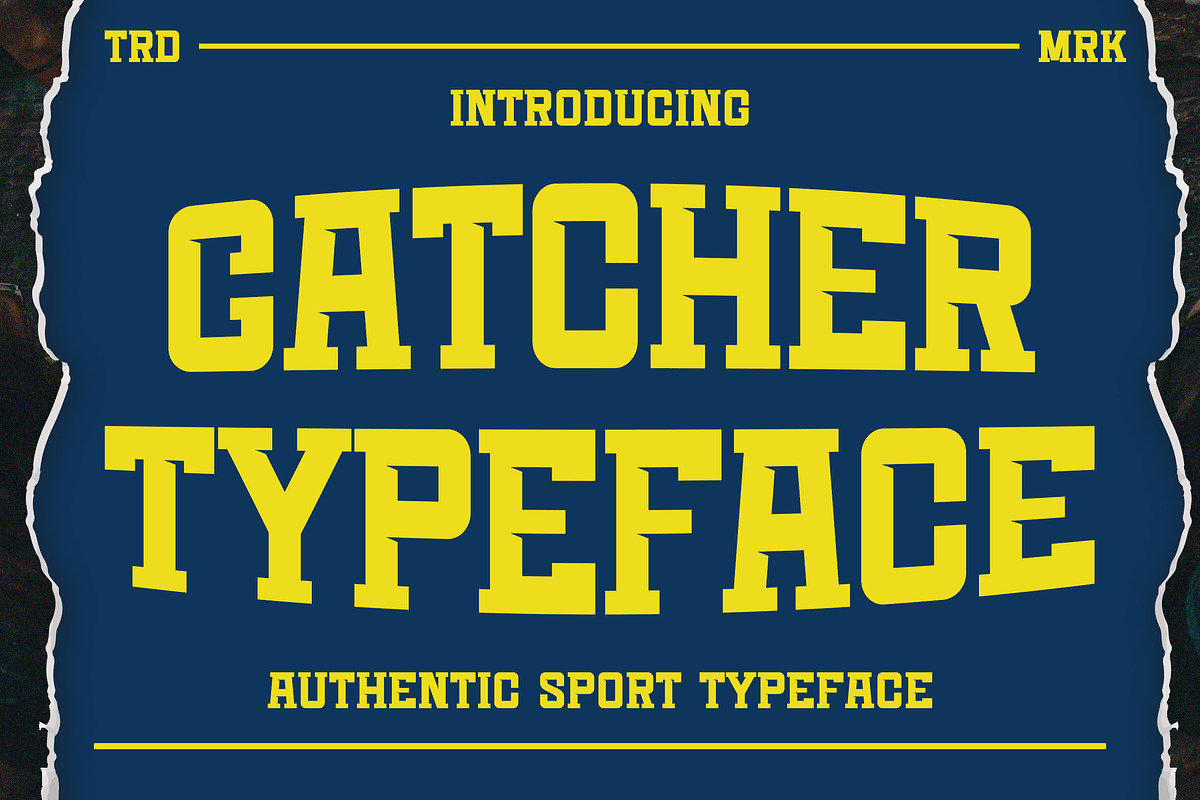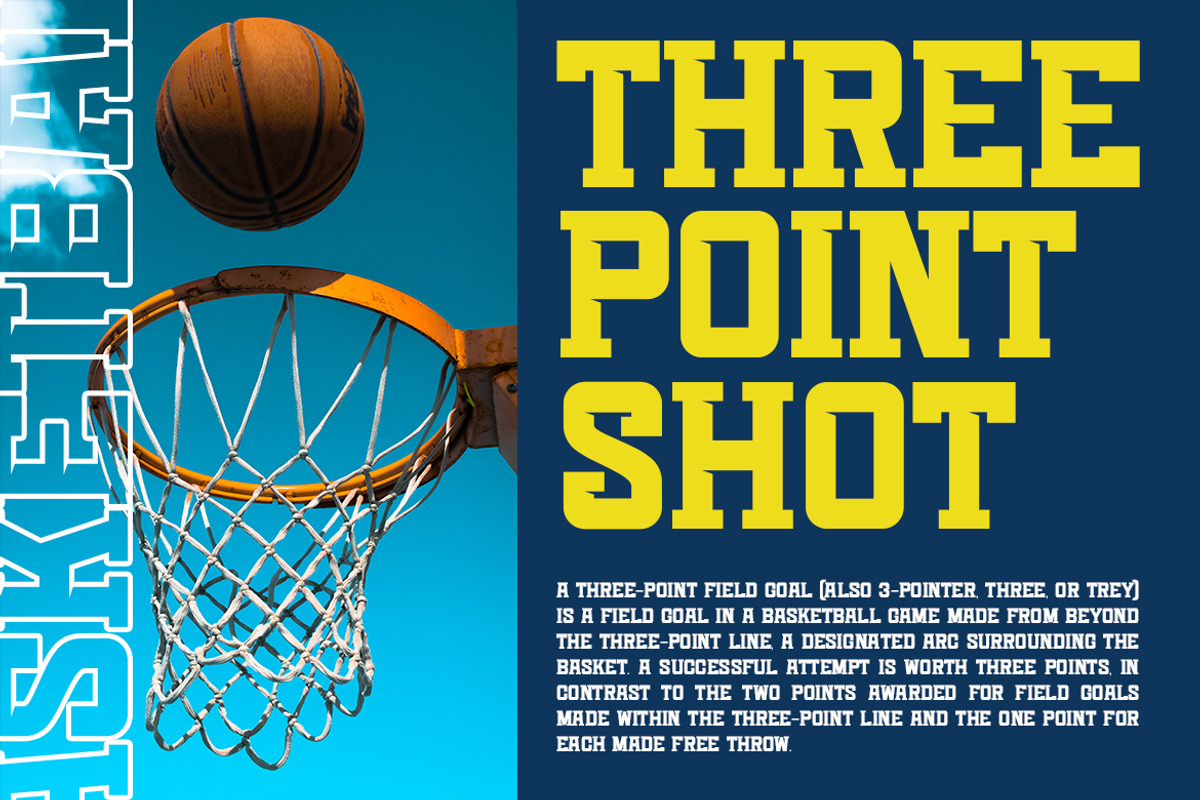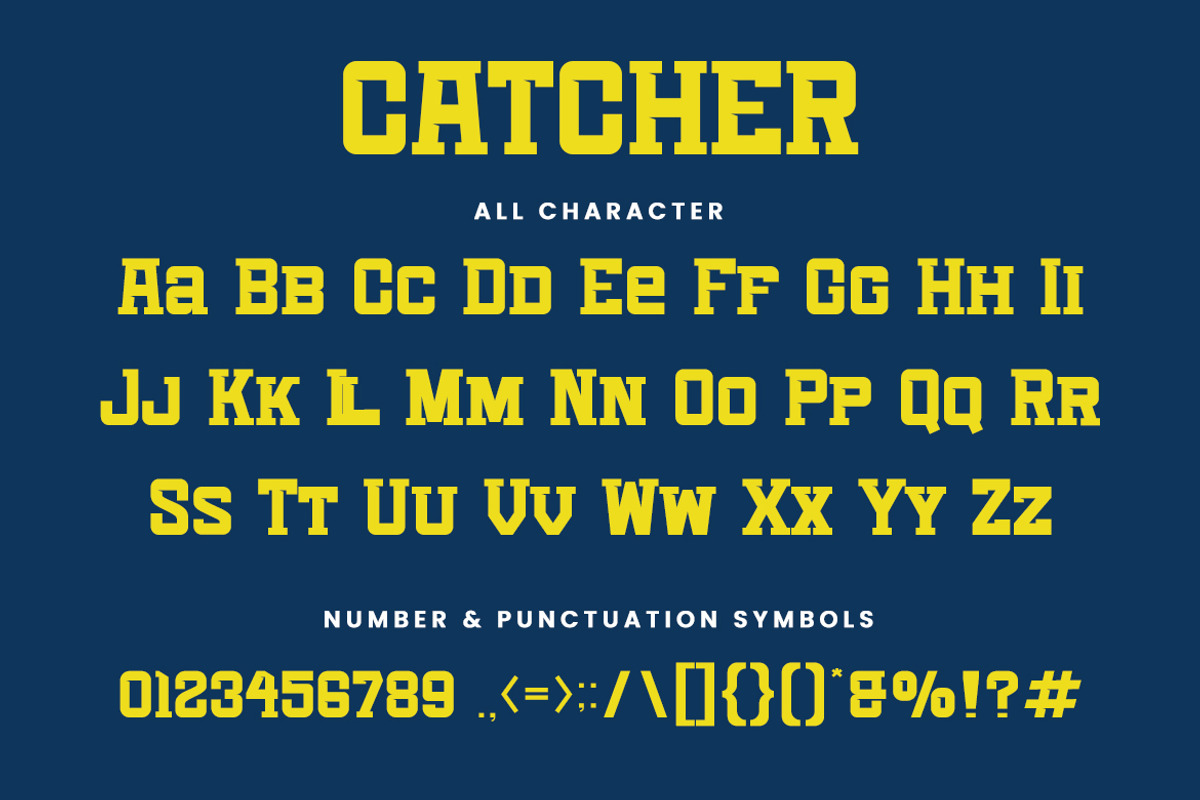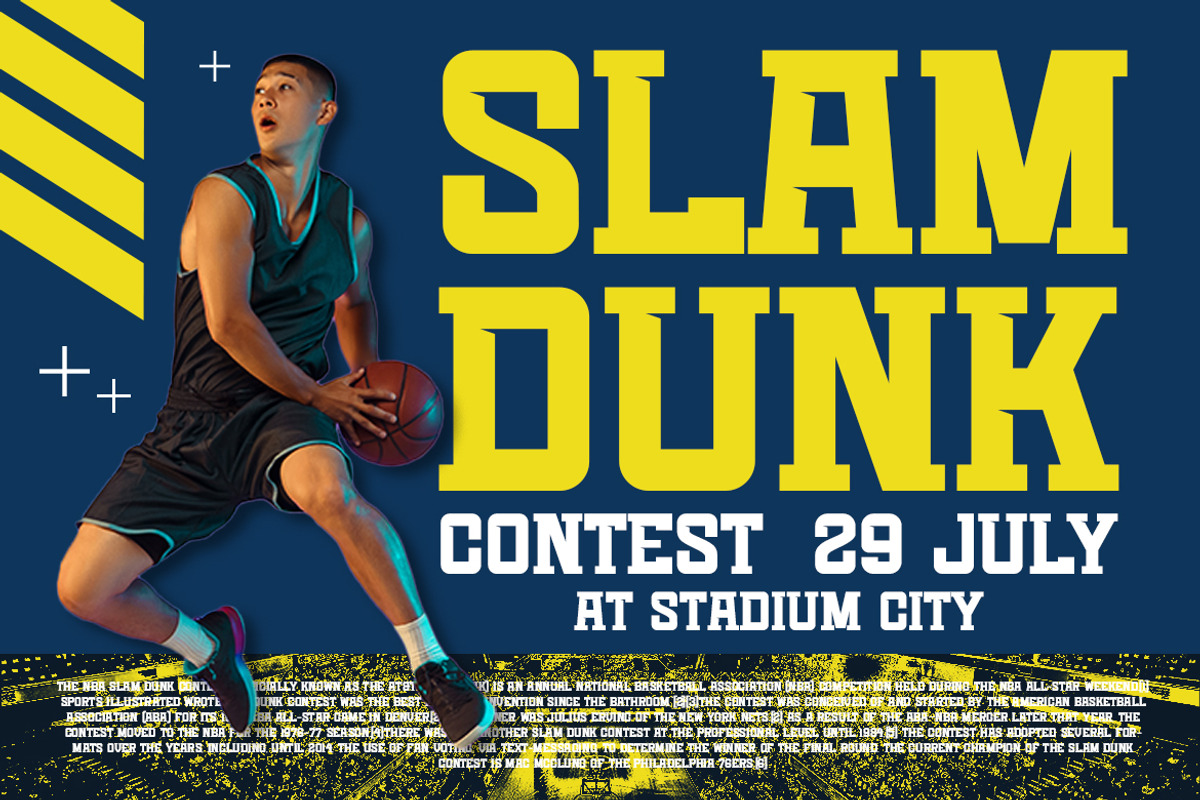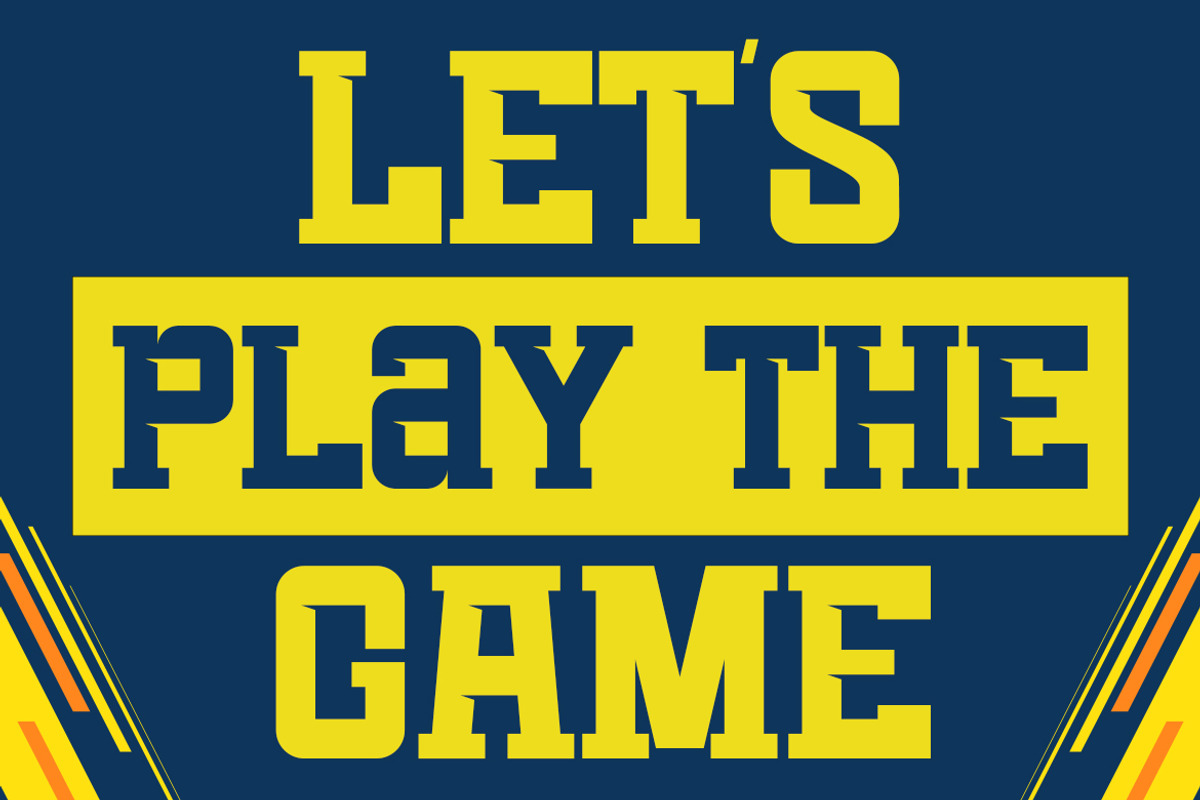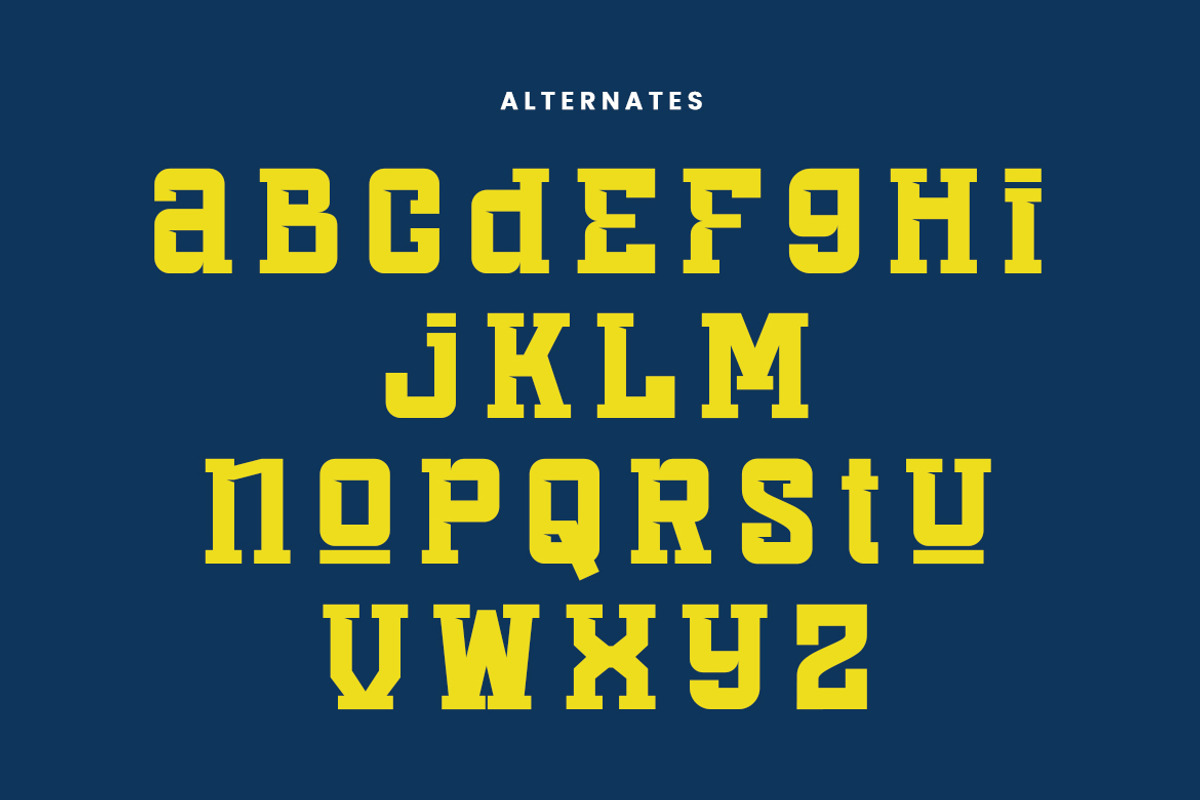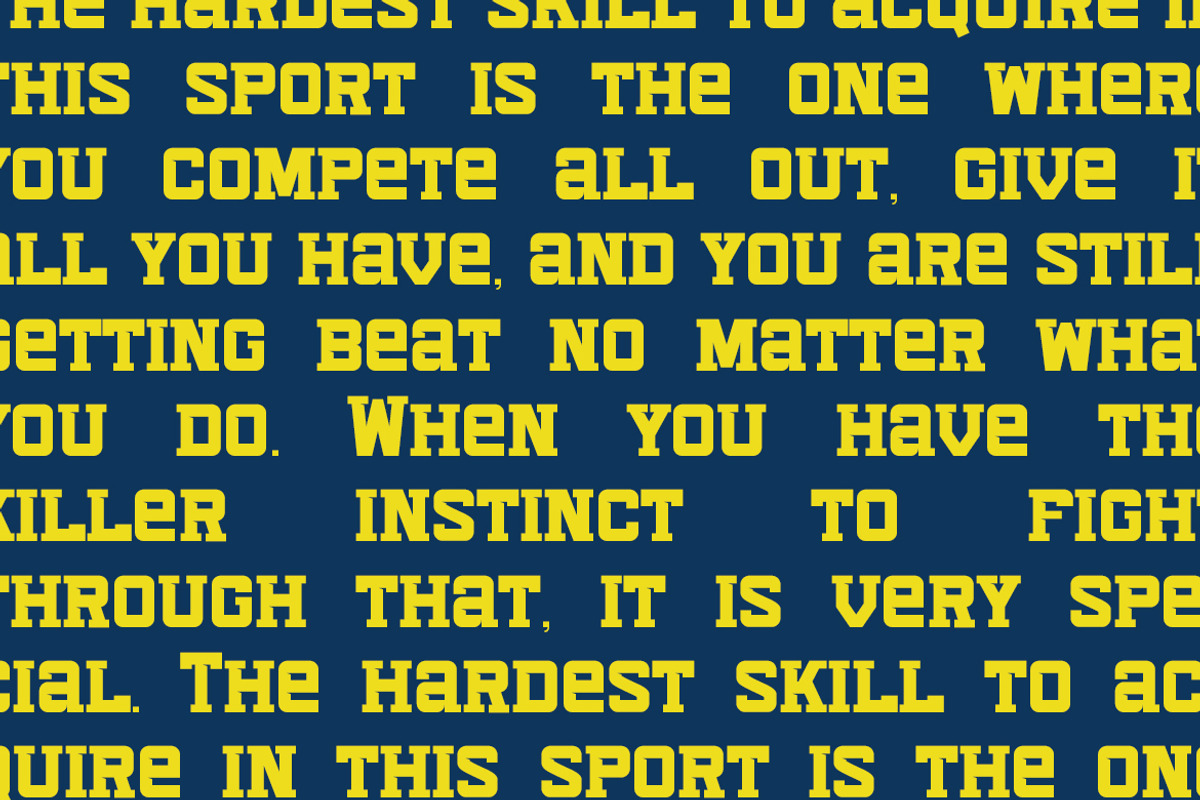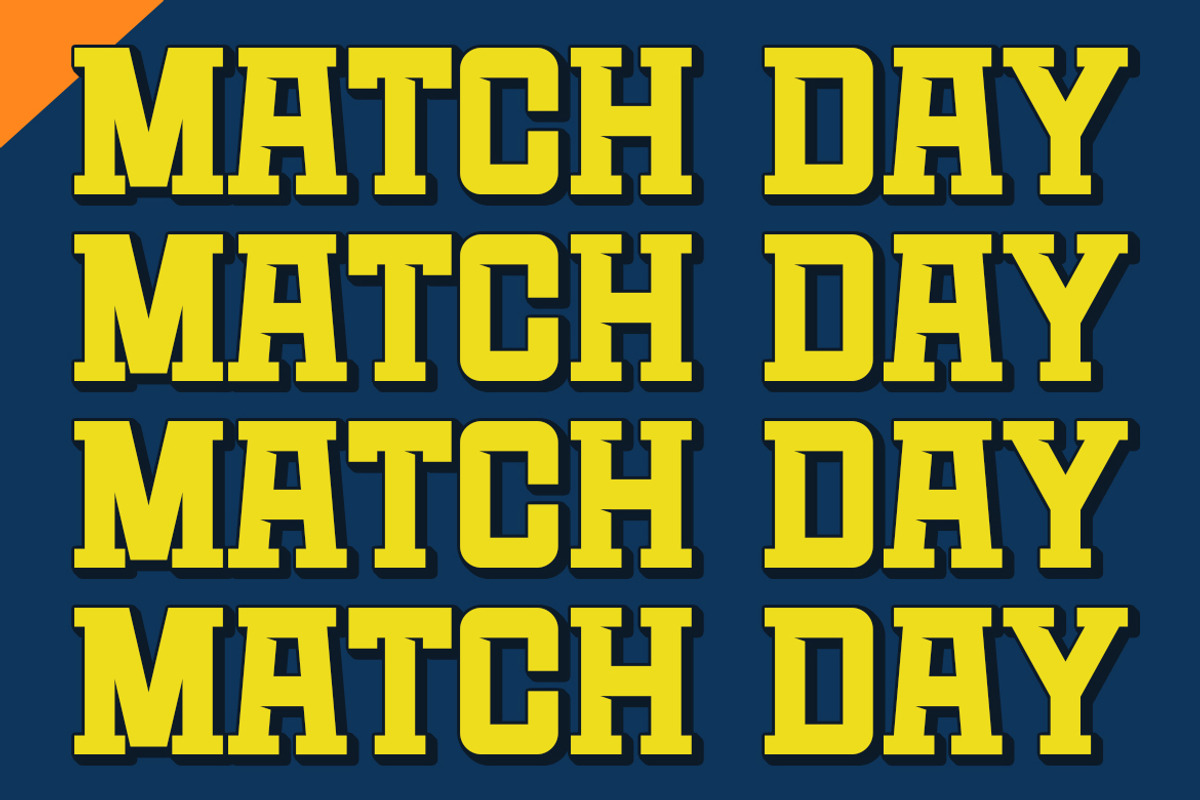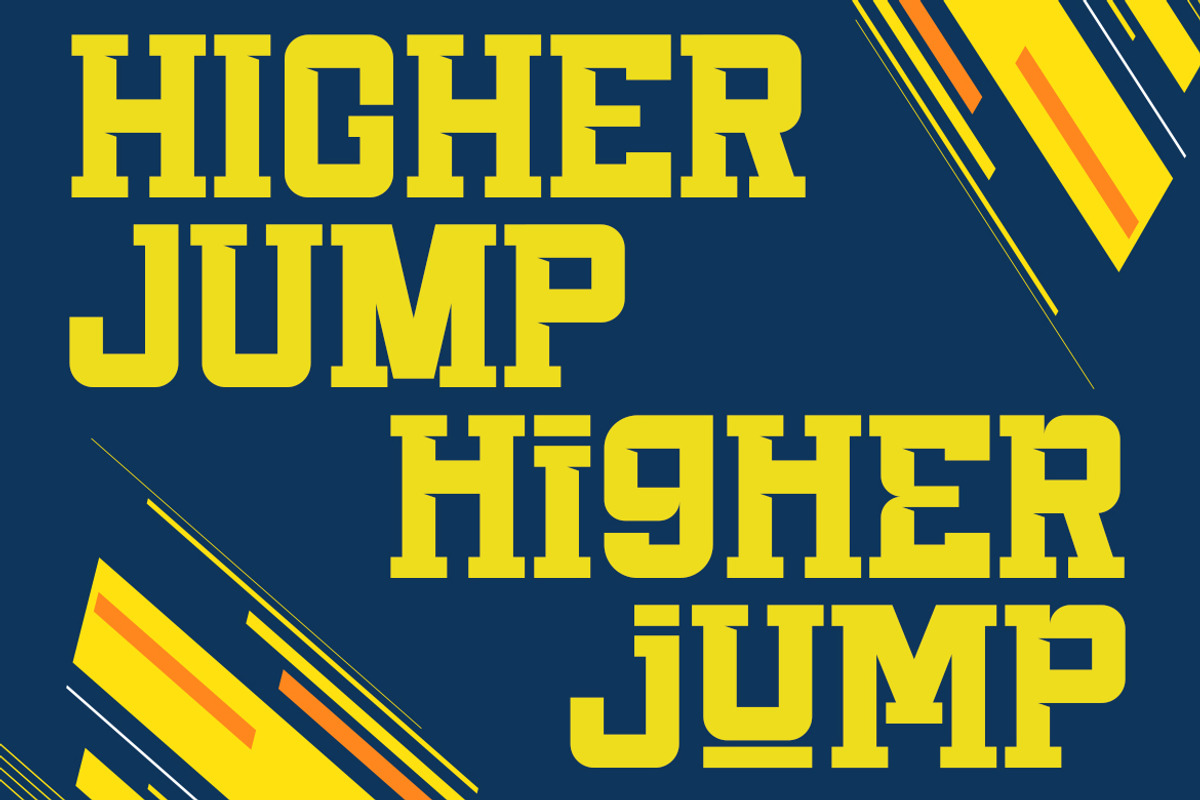
Carcher - Authentic Sport Font
Carcher - Authentic Sport Font contains a lowercase, uppercase, symbol, and also supports multi-language. There’s a lot of ligature in this font. Carcher - Authentic Sport Font also comes with ligatures, stylistic alternates and many more. this font suitable for fashion, branding, catalog and other design that you want.